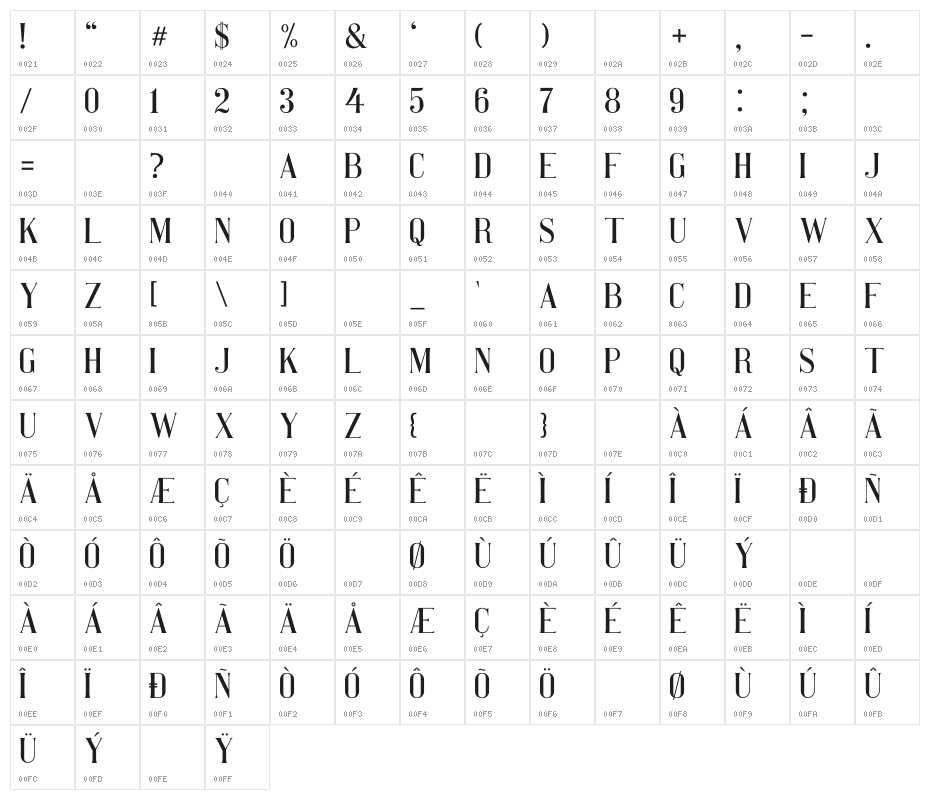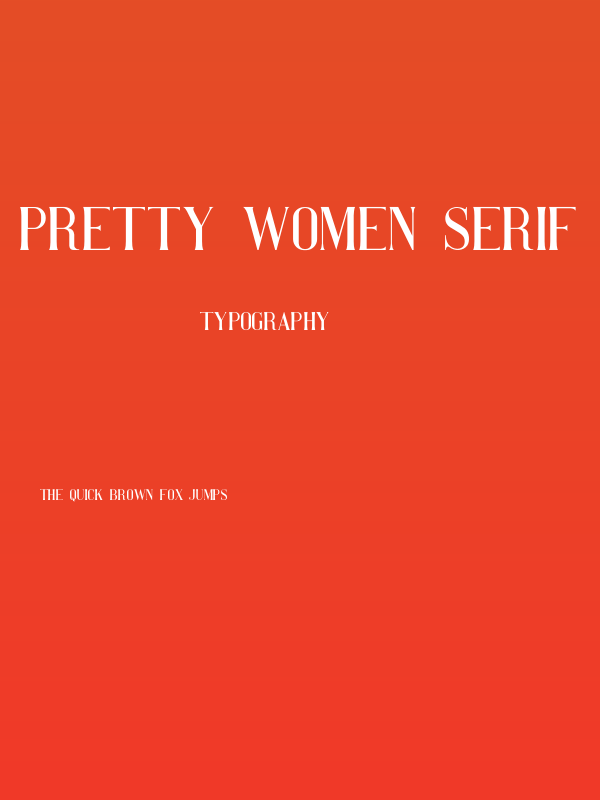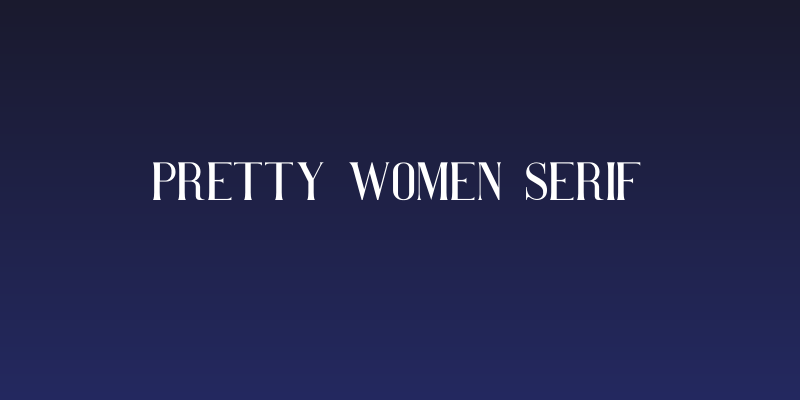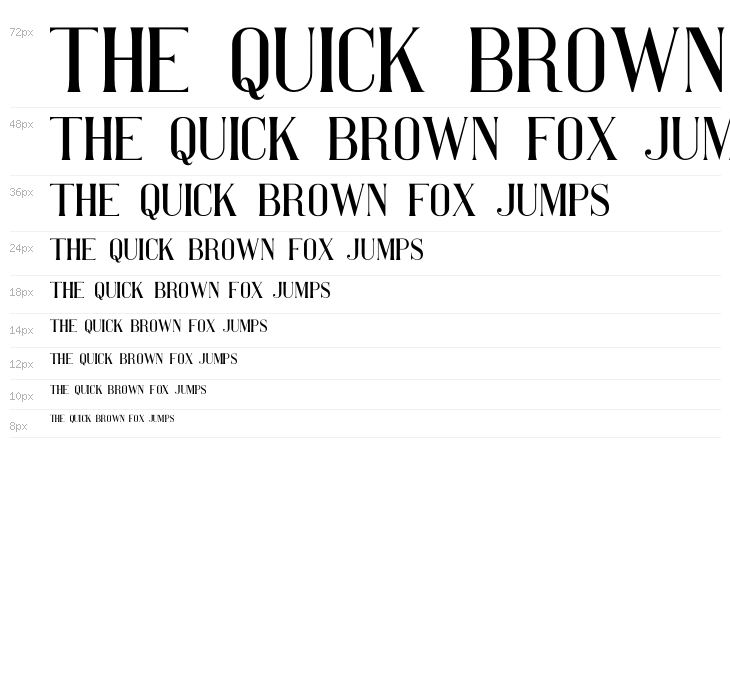
Pretty Women serif Font
Pretty Women serif Description
This font features a sophisticated serif style with elegant, elongated strokes and a high contrast between thick and thin lines. The uppercase letters are tall and slender, giving a refined and classic appearance. The lowercase letters maintain a consistent style, with smooth curves and sharp serifs that add a touch of elegance. The numerals are distinct and bold, ensuring readability while maintaining the overall aesthetic. Special characters are designed with the same attention to detail, providing a cohesive look across all glyphs. This font is ideal for projects that require a touch of sophistication and class.
| Proposed Projects | Ideal for luxury branding, wedding invitations, editorial design, and high-end product packaging. |